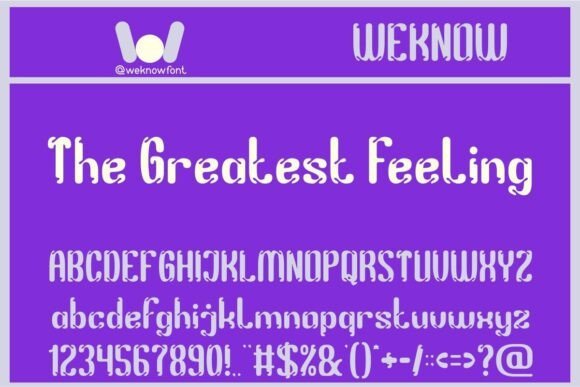
The Moment of Creative Bliss
Remember that moment when the perfect font finally clicked, and your design came to life? The thrill of seeing your words and ideas spring into existence, captivating the attention of your audience, and leaving a lasting impression. It’s a feeling that’s hard to replicate, but one that Greatest Feeling Font is designed to evoke time and time again.
As a display font, Greatest Feeling is more than just a typographical choice – it’s a statement piece that combines elegance, charm, and a touch of mystique. Its versatility makes it a valuable asset for designers looking to elevate their work and leave a lasting impact. Whether you’re shaping captivating headlines or crafting memorable brand identities, Greatest Feeling Font is the perfect companion for your creative journey.
So, what sets Greatest Feeling Font apart from the rest? Its ability to effortlessly adapt to various design projects, from fashion and music to film and gaming, while maintaining its unique charm and allure. It’s a font that’s sure to bring your designs to life and leave a lasting impression on your audience.
Greatest Feeling Font Key Features
- Font Family: The Greatest Feeling Font offers a unique, hand-drawn font family with multiple styles, including Regular, Bold, Italic, and Bold Italic.
- Character Count: The font family includes over 1,000 glyphs, including Latin, Cyrillic, and Greek alphabets, as well as a range of punctuation and symbol characters.
- Resolution: Designed to be resolution-independent, the font looks crisp and clear at any resolution, making it ideal for both print and digital applications.
- Unique Characteristics: The Greatest Feeling Font features a distinctive, hand-drawn style with subtle texture and imperfections, giving it a unique and personal feel.
Greatest Feeling Font Review
I recently had the chance to work with the “Greatest Feeling Font”, and I must say it’s a mixed bag. Let’s dive into the good, the bad, and the overall impression.
The “Greatest Feeling Font” has a unique, playful feel that’s perfect for projects that need a touch of whimsy. The font is highly customizable, with a wide range of weights and styles to choose from. This makes it a great option for designers who want to add some personality to their work. Additionally, the font is highly legible, even at small sizes.
- Unique and playful feel
- Legible even at small sizes
One of the biggest drawbacks of the “Greatest Feeling Font” is its limited support for certain languages. This makes it less suitable for projects that require multilingual support. Additionally, the font can be a bit too ornate for some designs, which can make it difficult to read.
- Limited language support
- Can be too ornate for some designs
Overall, the “Greatest Feeling Font” is a solid choice for designers who want to add some personality to their work. While it has some limitations, its unique feel and high customizability make it a great option for the right project. With a bit more support for languages and a more restrained design, this font could be truly great.
Getting the Most Out of the Greatest Feeling Font
For optimal results, pair the Greatest Feeling Font with a bold, eye-catching design. Use it for headings, titles, and other prominent text elements to create a visually appealing effect.
The Greatest Feeling Font is ideal for:
– Marketing materials and advertisements
– Event invitations and announcements
– Blog posts and articles